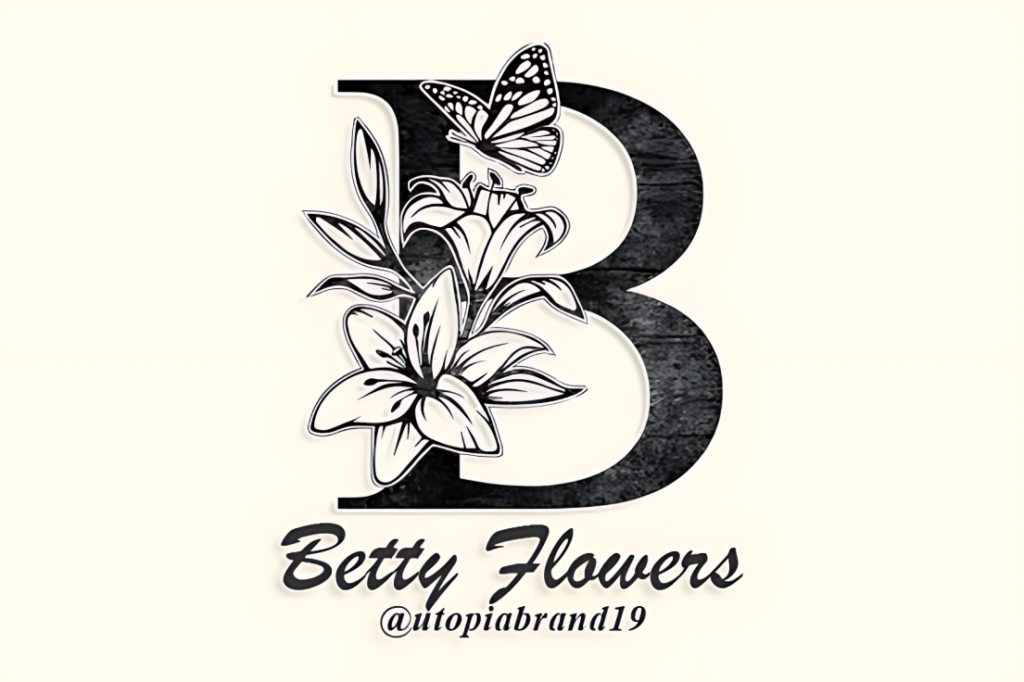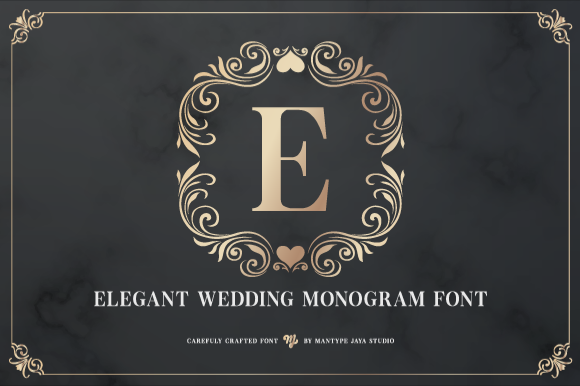
This collection highlights elegant monogram fonts for weddings and formal designs. It is aimed at designers, couples, and stationery makers. Each font blends classic letterforms with ornamental details. Use them for monograms, invitations, signage, and keepsake items. Options range from subtle initials to richly ornamented ligatures. Samples include uppercase, lowercase, and ornamental alternates.
You will find varied styles from delicate scripts to structured initials. Samples show how letters work in print and digital layouts. Tips explain pairing and spacing for readable, refined results. Choose a font to create cohesive, personal formal branding. Try them on place cards, envelopes, programs, and digital announcements.
Alina Monogram Font Font
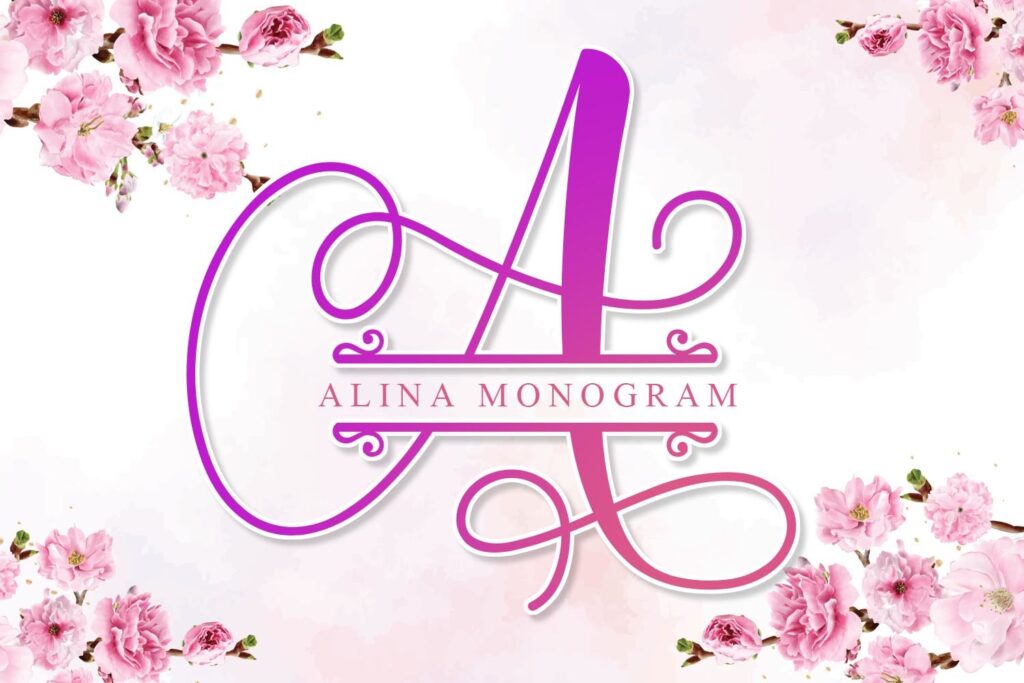
A charming decorative style gives your initials an authentic, hand-crafted look for formal events. Use it for wedding invitations, RSVP cards, place cards, menus, and refined signage. Pair with simple serif or clean script to make elegant monograms and personalized logos. Design social posts, embossed stationery, foil-stamped favors, and delicate thank-you notes with ease. Its nostalgic charm suits both modern and vintage-themed celebrations and keeps printed pieces memorable.
Beauty Flower Monogram Font
This elegant decorative type adds delicate floral ornaments to initials and names. Use it for wedding invitations, ceremony programs, menus, and formal envelopes. Create monogram logos for stationery suites and embossed seals with refined detail or subtle foil accents. Pair its ornaments with soft colors, textured papers, and delicate ribbons for romantic printed pieces. It also enhances social posts, digital banners, heartfelt greeting cards, and coordinated story templates.
Aurelina Monogram Font
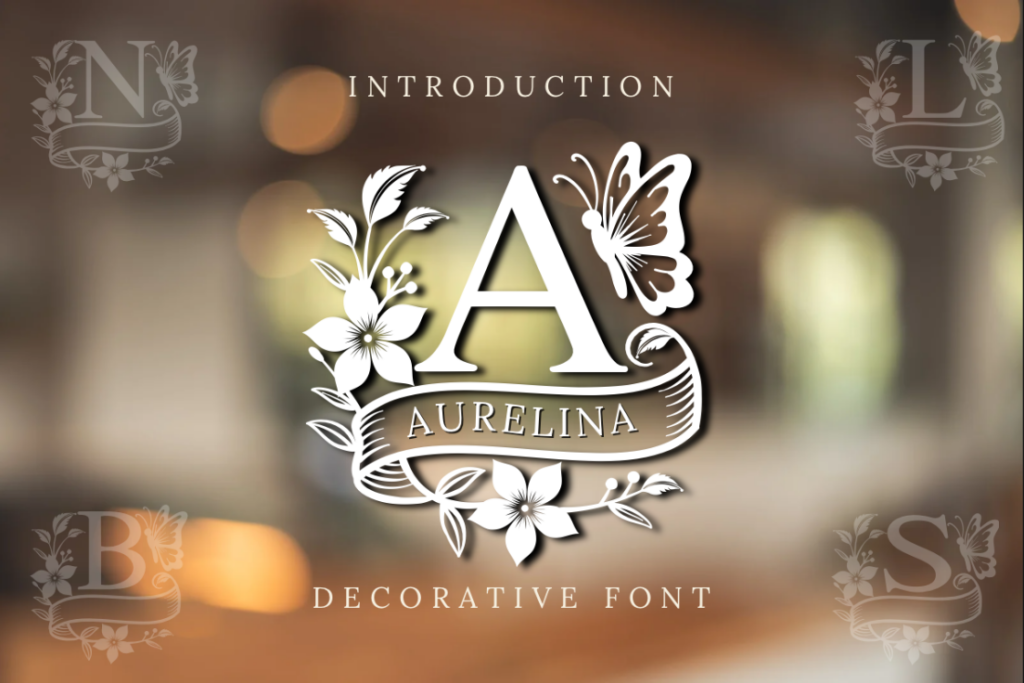
An ornate decorative font with floral and butterfly accents brings refined vintage charm to designs. Use it to craft elegant monograms for wedding invitations, programs, and personalized stationery. Pair initials into crest-like logos, emboss them on favors, or laser-cut them on keepsakes, and apply layered colors. It also shines in formal branding, signage, menus, and delicate headline layouts that require a poised, classic voice. Each letter unfolds like a blooming garden, giving projects a nature-inspired, sophisticated finish.
Butterfly Monogram Font
This elegant font places decorative initials inside a delicate round frame of flowers and butterflies, ideal for heirloom stationery. Use it for wedding invitations, save the dates, RSVP cards, and rehearsal dinner menus. Apply initials to place cards, favor tags, stamps, embossed napkins, and embroidered handkerchiefs for personal touches. Pair with soft pastels, gold foil, or deep navy backgrounds for refined contrast. Works well in print and digital layouts for ceremony signage, social announcements, and subtle logo marks for vendors.
Love Heart Monogram Font
A romantic decorative script with flowing heart-shaped curves and artistic swirl tails balances calligraphy and romantic detail. Ideal for wedding invitations, RSVP cards, vow books, and ceremony signage that require elegant initials or intertwined couple monograms. Apply it to luxury branding, embossed stationery, seals, gift tags, bespoke packaging, personalized keepsakes, and refined social media imagery. Perfect for craft projects, prints, custom merchandise, and Valentine-themed designs that benefit from whimsical yet sophisticated letterforms.
Heart Emblem Monogram Font
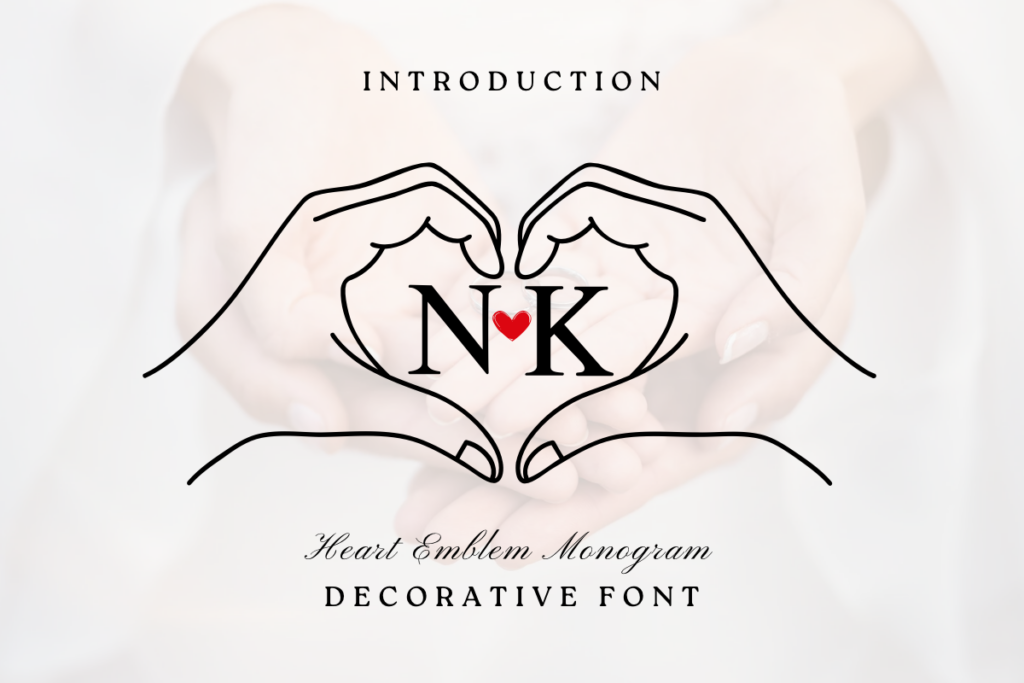
Delicate heart motifs join flowing initials to create an intimate, romantic monogram style for formal designs. Use it on wedding invitations, save-the-dates, RSVP cards, and elegant envelopes for consistent branding. Try embossing on thank-you notes, blind-stamped programs, or engraving on wooden cake toppers and keepsakes. Design elegant logos, monogrammed linens, gift tags, packaging, ribbon, and social media headers. Includes alternates, heart swaps, and ligatures to help you personalize initials and pairings.
Monogram Font Family Font
Five complementary fonts present ornate, hand-drawn letterforms that read as miniature works of art. Apply them to wedding invitations, save-the-dates, and elegant place cards. They elevate embossed stationery, foil stamping, engraved signage, and embroidered initials even on laser-cut details. Mix letters into distinctive initial marks for lettered logos, seals, or signature motifs. Ideal for luxury packaging, certificates, social posts, and personalized gifts, with handcrafted finishes.
Wedding Infinity Monogram Font
Create refined wedding invitations and RSVP cards using graceful initials enclosed in a romantic floral round frame. Use monograms on signage, table numbers, favor tags, and thank you notes for a cohesive event look. Combine with soft pastels, textured papers, or foil accents to add subtle depth and timeless charm. Perfect for formal showers, anniversary stationery, and luxe branding for boutique planners and florists. Files export cleanly for print and digital use, letting you size and layer monograms with ease.
Conclusion
These elegant monogram decorative fonts for wedding and formal designs bring classic charm and refined ornamentation to invites. Each style balances flourish and legibility. They suit timeless themes and modern heirloom looks. Use them for monograms, crests, programs, place cards, and embossed details. Mix script swashes with simple serif initials for contrast. Try metallic foils, letterpress, or subtle watercolor backdrops for texture. Play with negative space for a refined result.